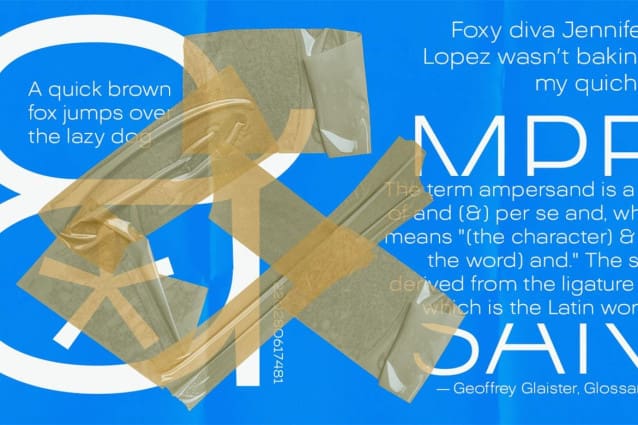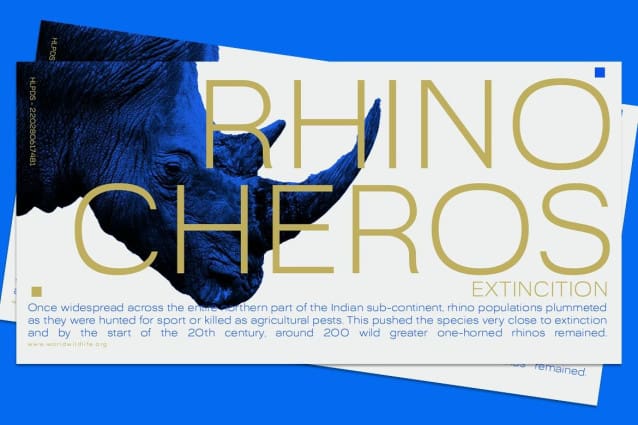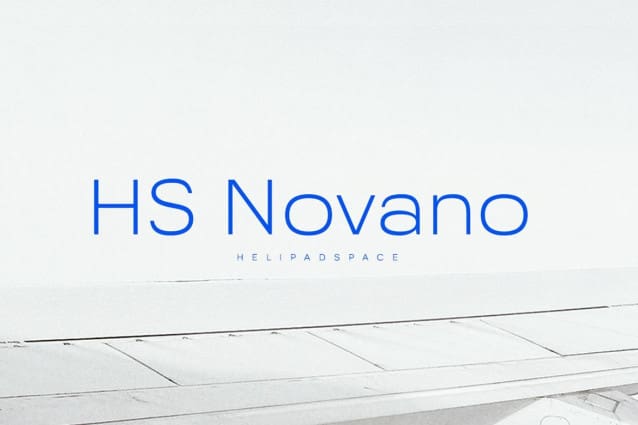
HS Novano Font
HS Novano Font, a modern San Serif with a clean touch. It looks modern and clean and can be used for all your project needs. This font can be used anytime and for any project. Make your design more modern and more refined
HS Novano Font is therefore looking forward to giving its touch to all your design projects such as magazines, books, posters, personal branding, promotional materials, logotype, product packaging, etc.